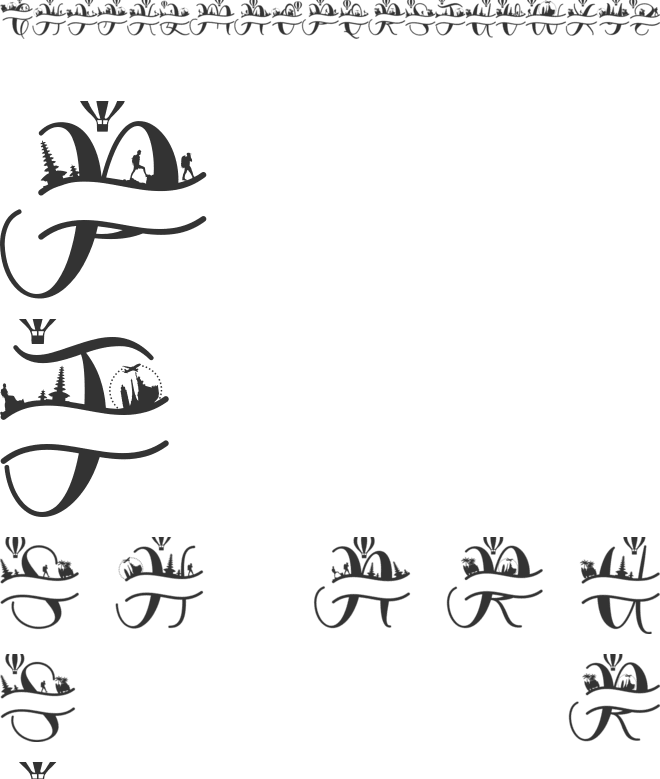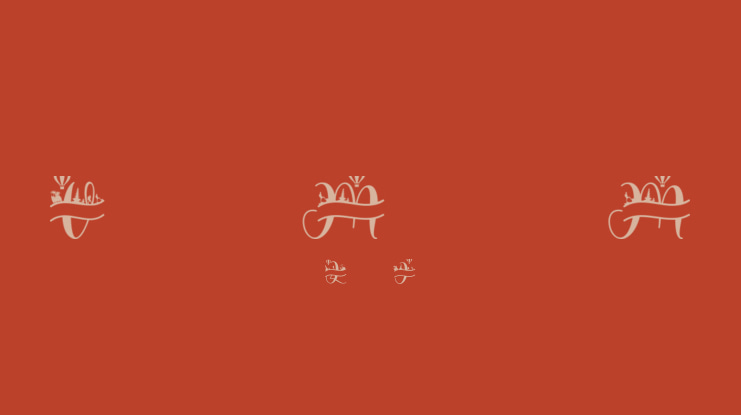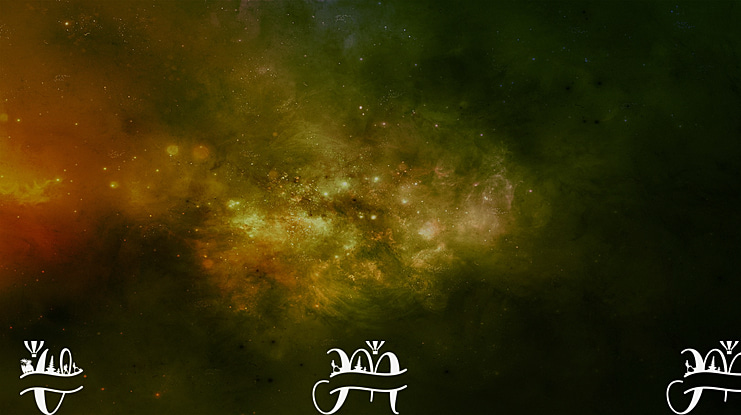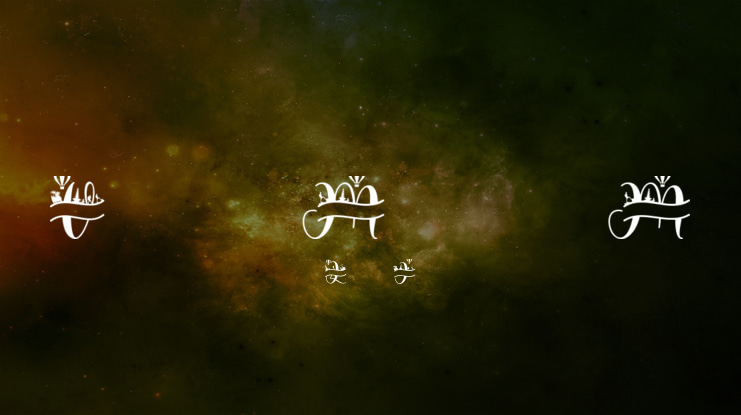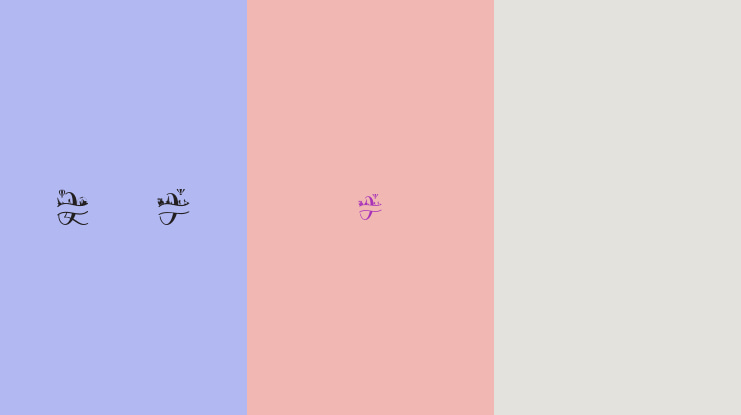
Vacation Monogram (Monogram) Font Family
Selvia Design (Selvia Cahya Kusuma Devi)
It’s a script font combined with a monogram. This monogram is decorated with forms of tourism and traveling around the world.